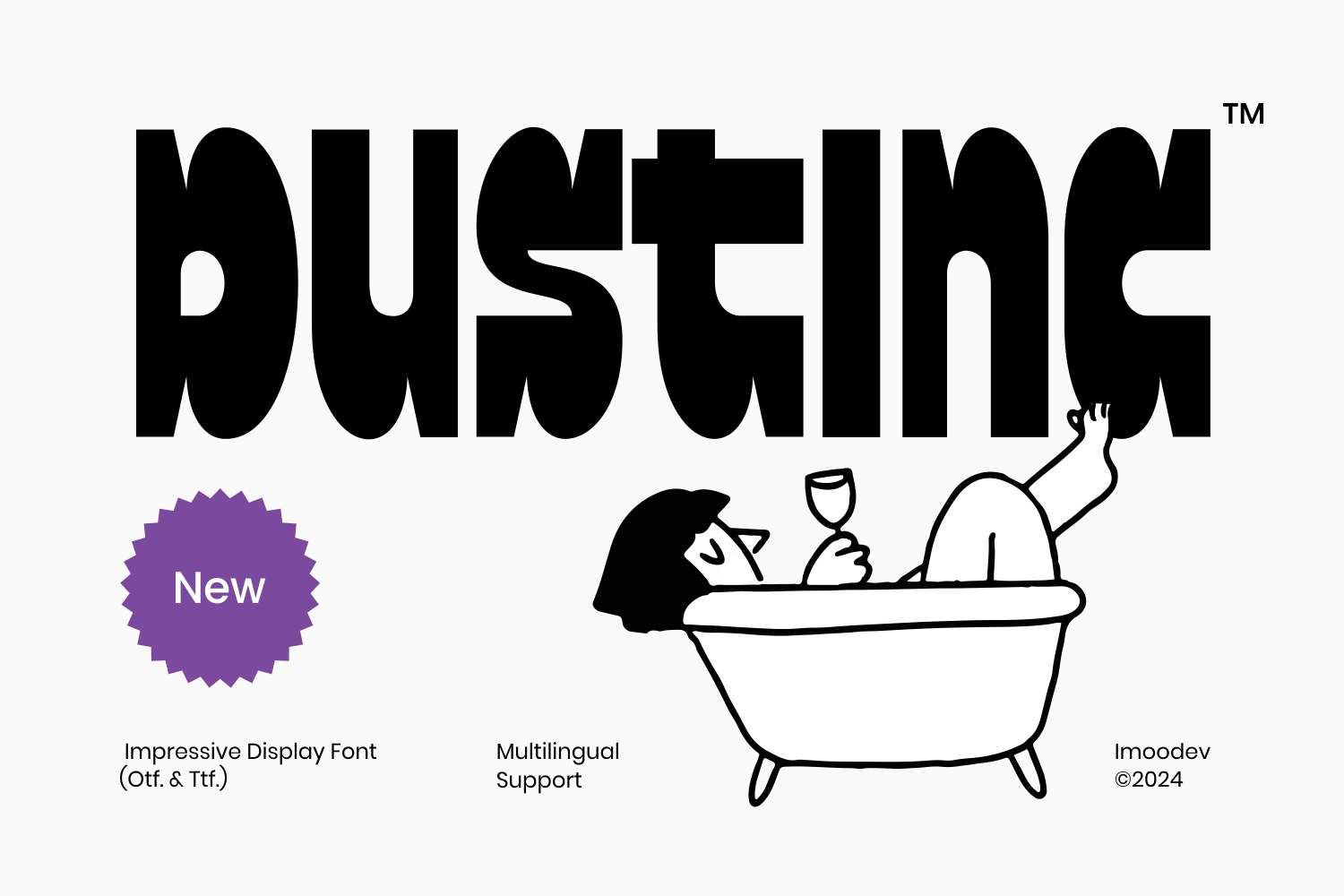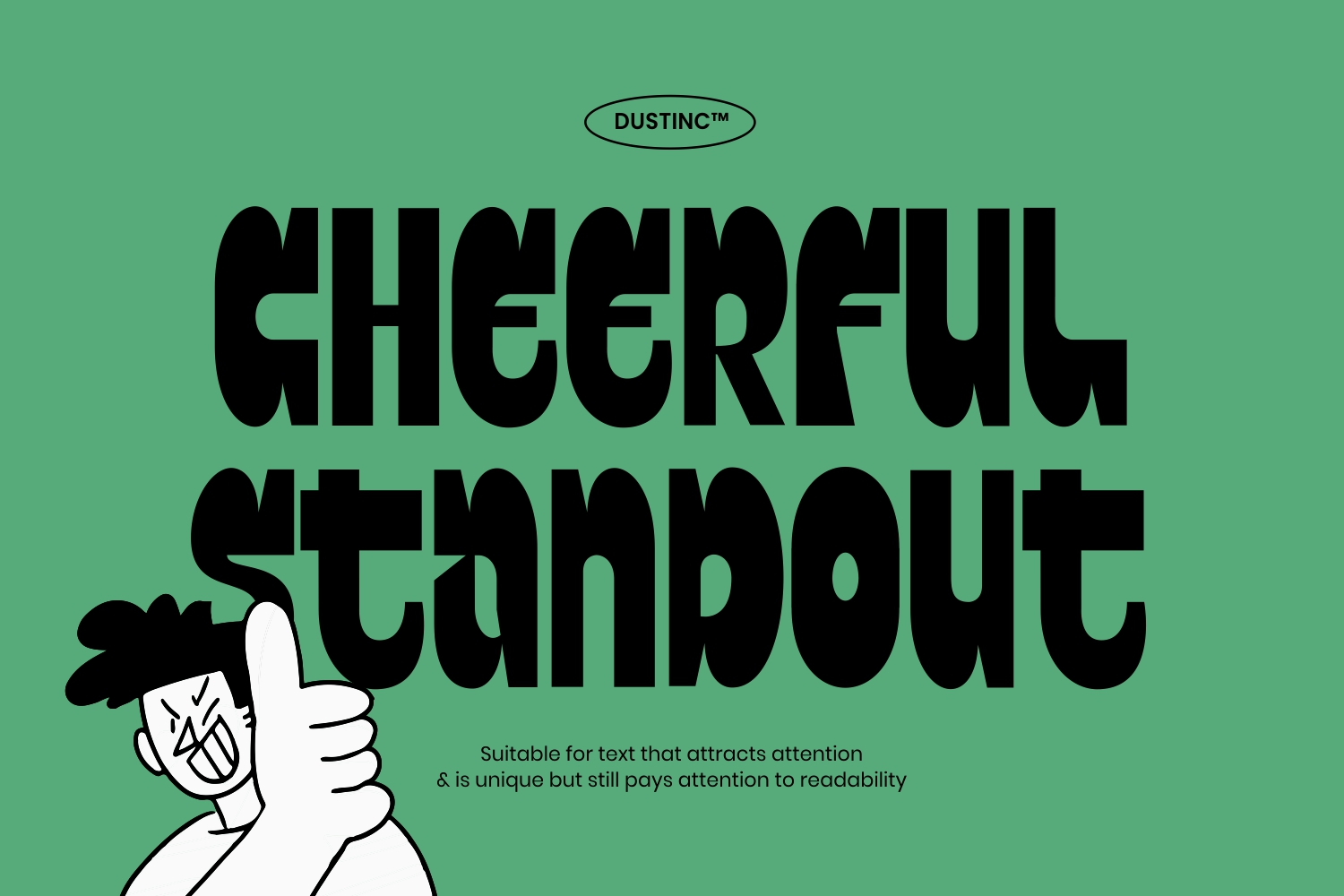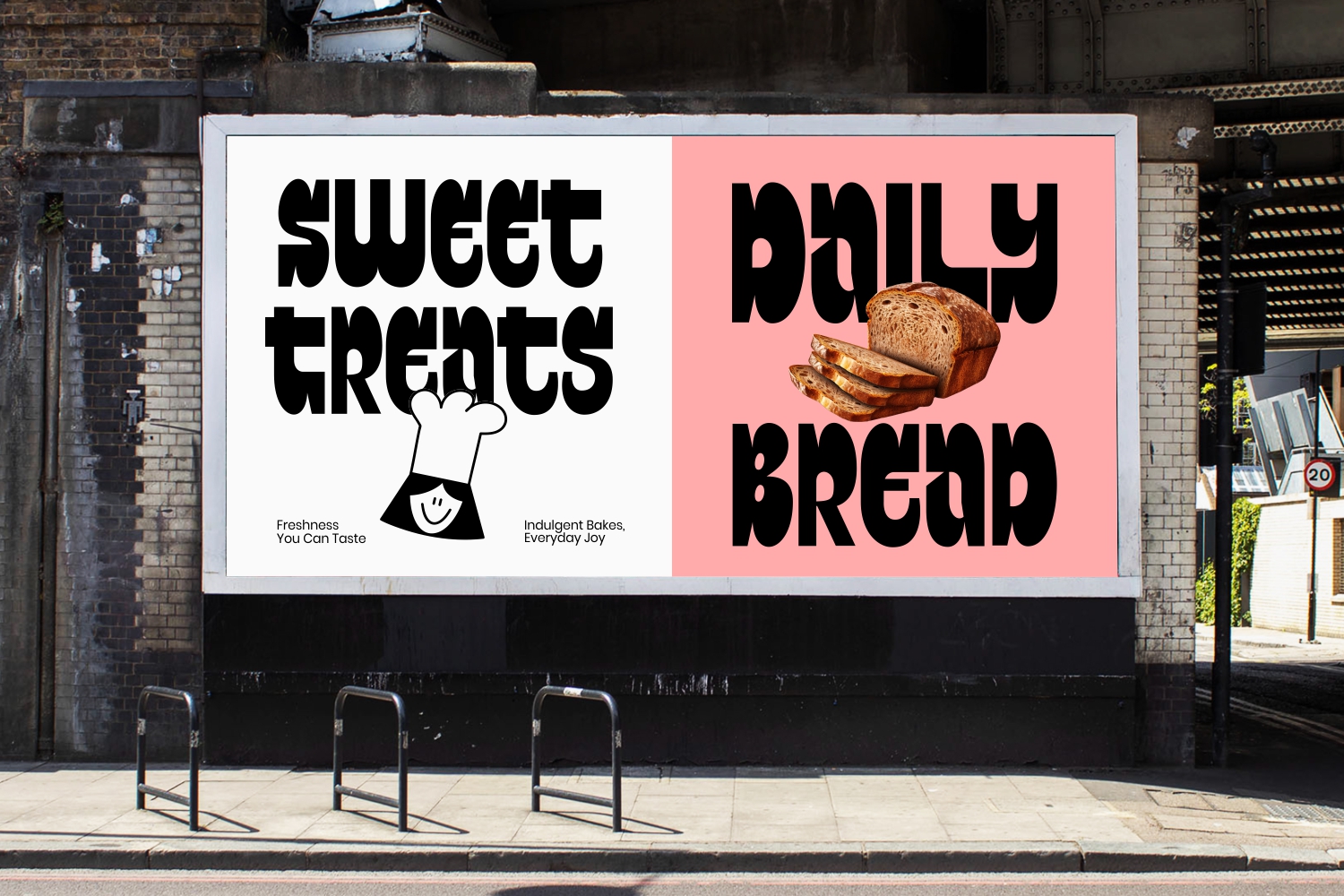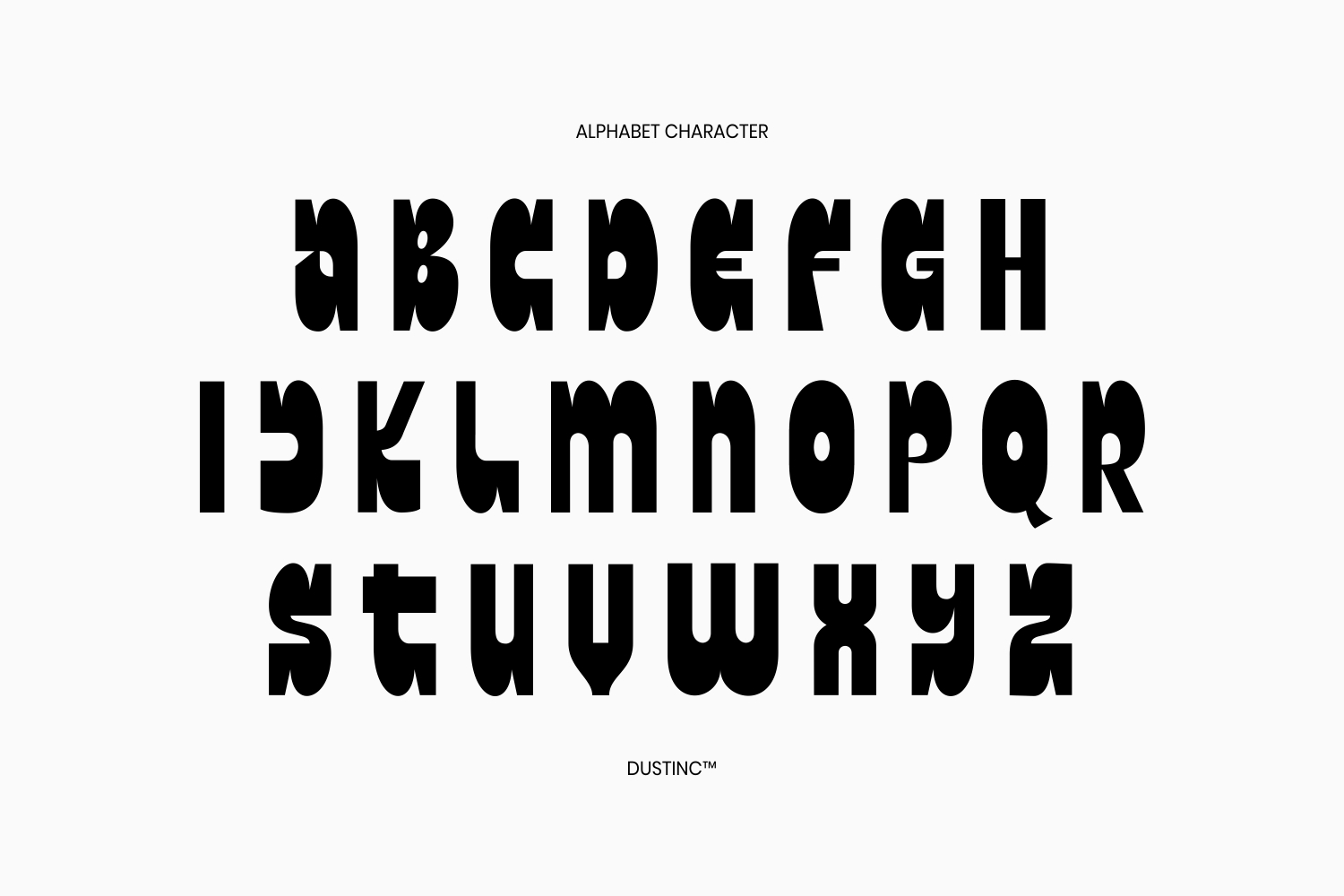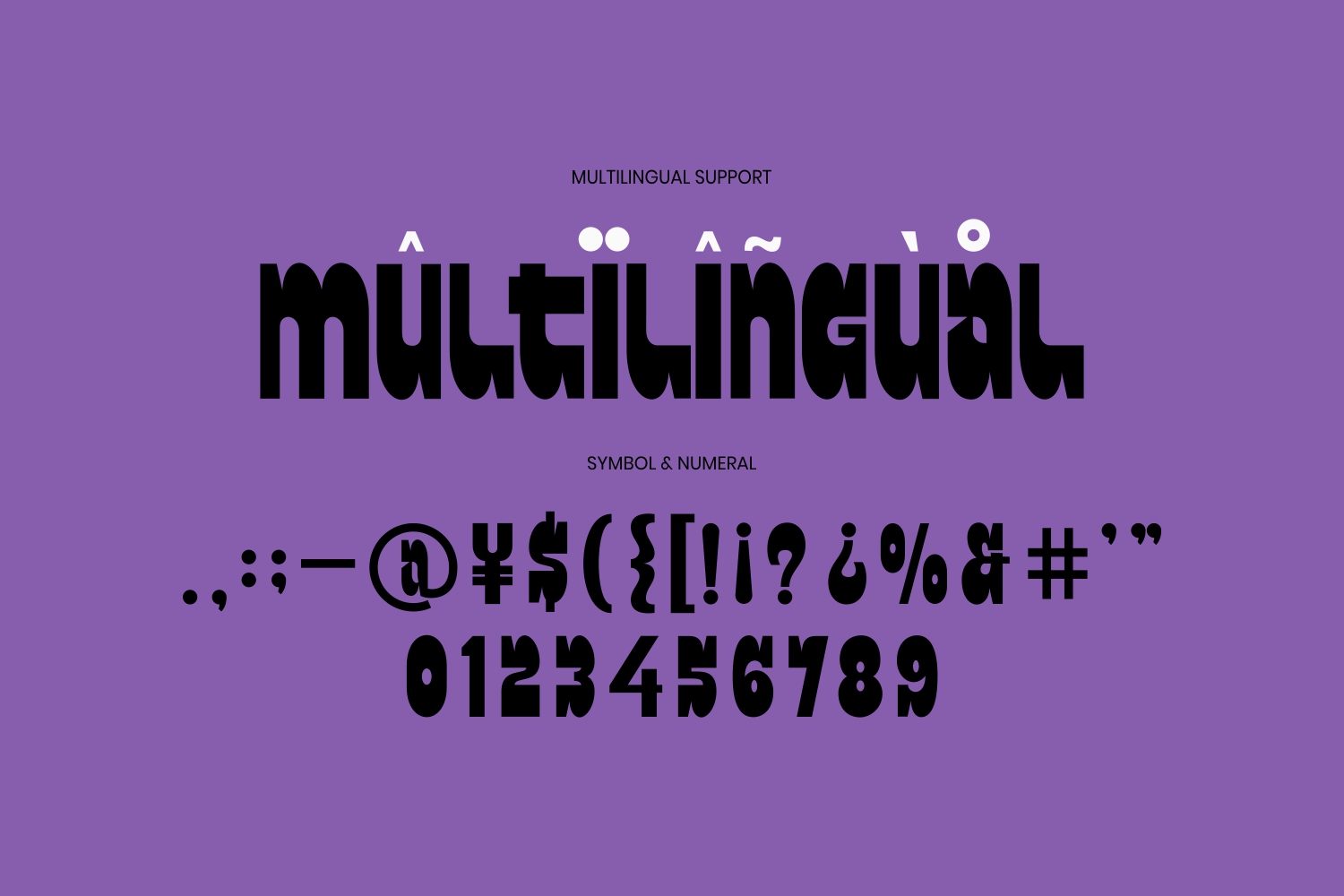
Dustinc is an impressive display font with a bold, playful, and highly expressive style. Its thick, rounded forms create a cheerful and standout look, making it perfect for attention-grabbing headlines, posters, packaging, and branding projects. The font’s unique structure balances quirkiness with readability, giving your designs a fun yet professional character.
Equipped with multilingual support and a complete set of characters, Dustinc is versatile for both digital and print applications. Whether used for creative advertising, food and beverage branding, editorial design, or street-style merchandise, this font ensures your message pops with confidence and personality.
Dustinc